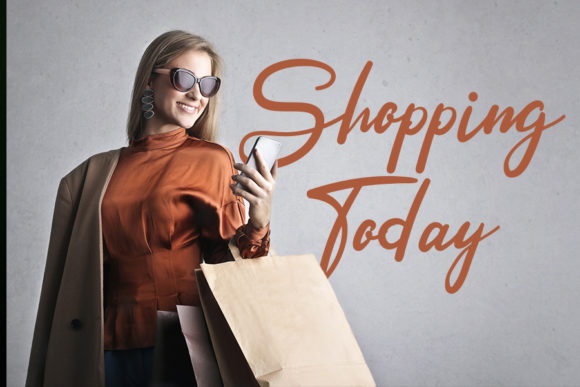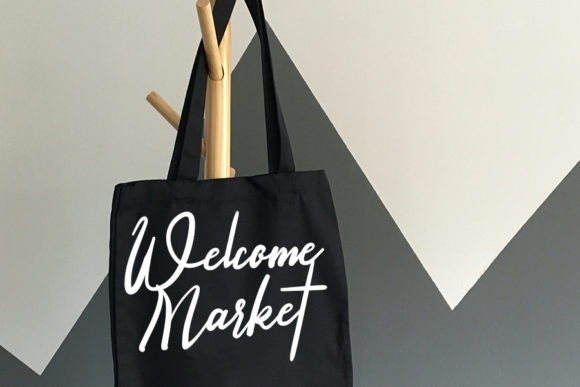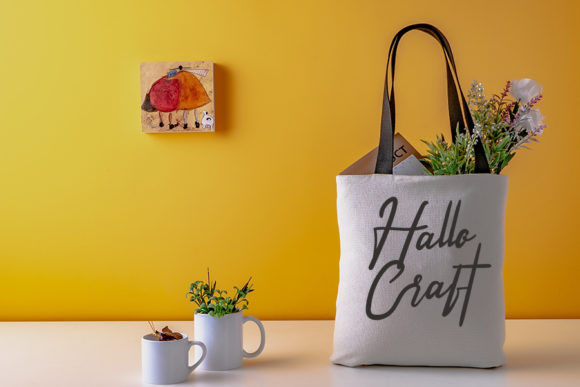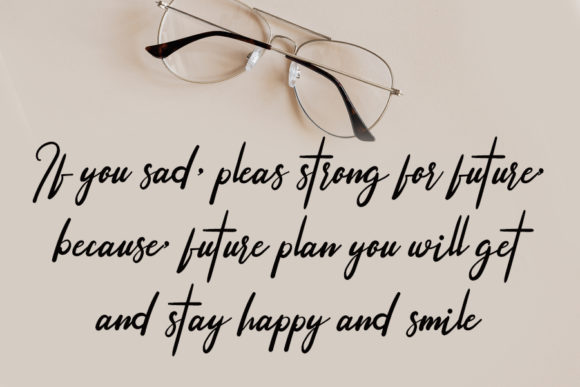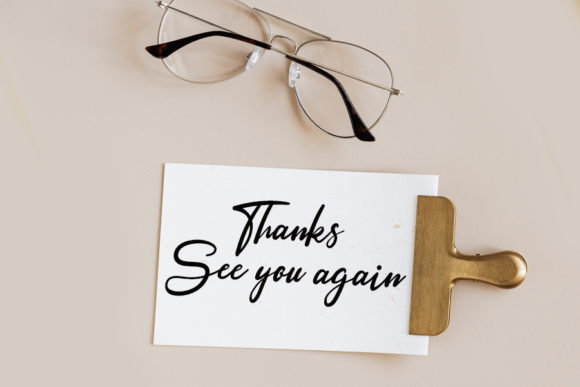
Boltania Font: Elevate Your Designs with a Touch of Luxury
In the world of typography, fonts play a crucial role in transforming a design from ordinary to extraordinary. For designers and crafters looking to add a dash of sophistication and elegance to their projects, the Boltania Font is an exceptional choice. This beautiful light handwritten font boasts a unique feel and a stunning impact, making it the perfect addition to any design endeavor.
What Makes Boltania Font Stand Out?
Boltania Font is not just another font; it’s a game-changer for those who aim to create designs that exude luxury and finesse. Its light and airy texture, combined with elegant handwritten strokes, gives it a distinctive charm. This font is meticulously crafted to ensure that it leaves a lasting impression on viewers, setting your designs apart from the rest.
Key Features of Boltania Font
- Unique Handwritten Style: Boltania Font features a beautiful, light handwritten style that adds a personal touch to any design.
- Luxury Appeal: Its elegant and sophisticated look makes it ideal for projects that require a high-end feel.
- Versatility: Whether you’re working on a branding project, a wedding invitation, or a packaging design, Boltania Font adapts seamlessly to various design needs.
- Easy to Read: Despite its elegant and light nature, Boltania Font maintains excellent readability, ensuring your message is conveyed clearly.
The versatility of Boltania Font makes it suitable for a wide range of design projects. Here are some ideas on how you can use this stunning font:
- Branding and Logotypes: Create a memorable brand identity with Boltania Font, perfect for luxury brands, beauty products, and high-end services.
- Wedding and Event Invitations: Add an elegant and sophisticated touch to your wedding invitations, event flyers, and thank you cards.
- Packaging Design: Elevate your product packaging with a font that communicates luxury and quality.
- Digital and Print Media: Use Boltania Font in your digital content, such as blog headers, social media graphics, and print materials like brochures and posters.
How to Use Boltania Font Effectively
To make the most of Boltania Font, consider the following tips:
- Pair with Complementary Fonts: For maximum impact, pair Boltania Font with clean, sans-serif fonts to create a balanced look.
- Adjust Letter Spacing: Slightly increase letter spacing to enhance readability and give your text a more luxurious feel.
- Play with Colors: While Boltania Font looks stunning in black or dark colors, don’t hesitate to experiment with soft pastels or metallic colors to match your brand’s aesthetic.
Boltania Font is more than just a typeface; it’s a design element that can transform your projects with its unique feel and stunning impact. Its luxury appeal, versatility, and readability make it an indispensable tool for designers and crafters aiming to create high-end designs. Whether you’re working on a branding project, an event invitation, or packaging design, Boltania Font is sure to add that extra spark of elegance and sophistication.